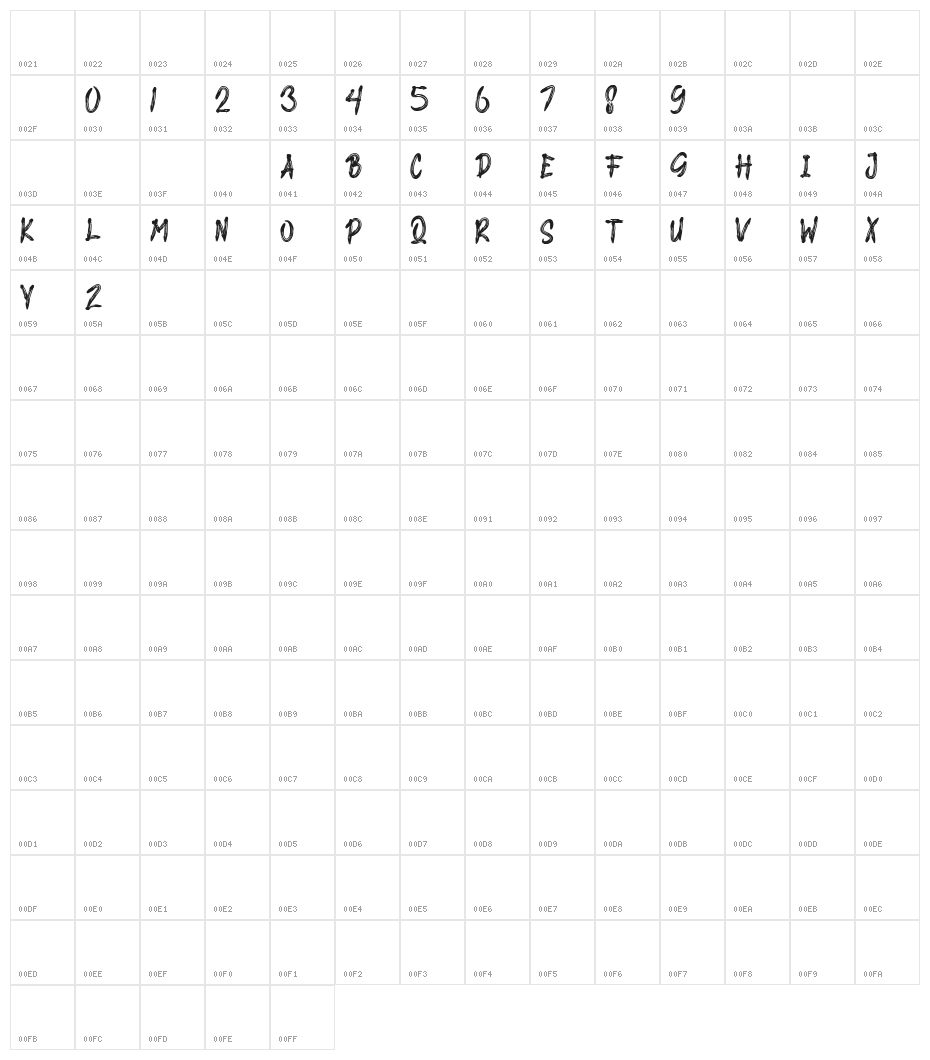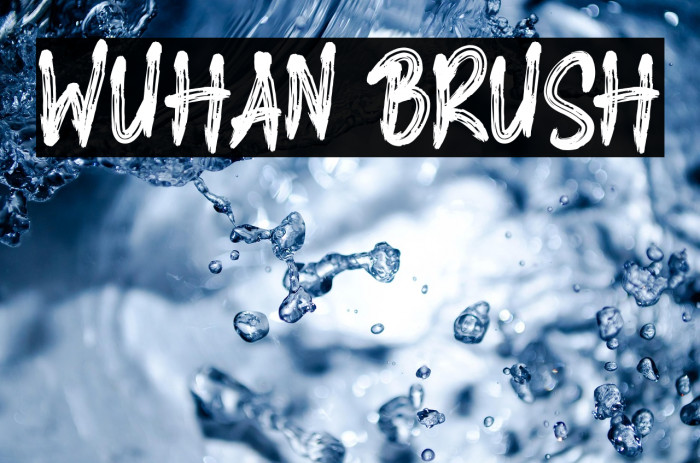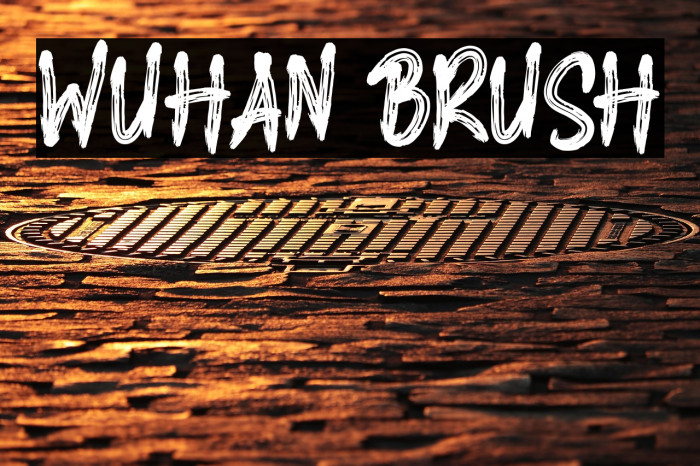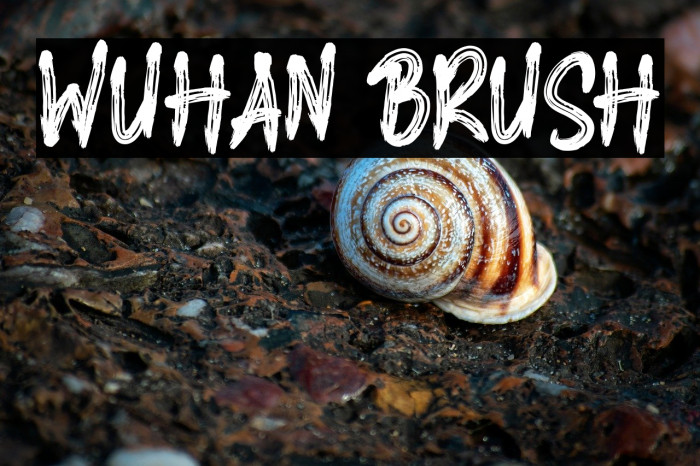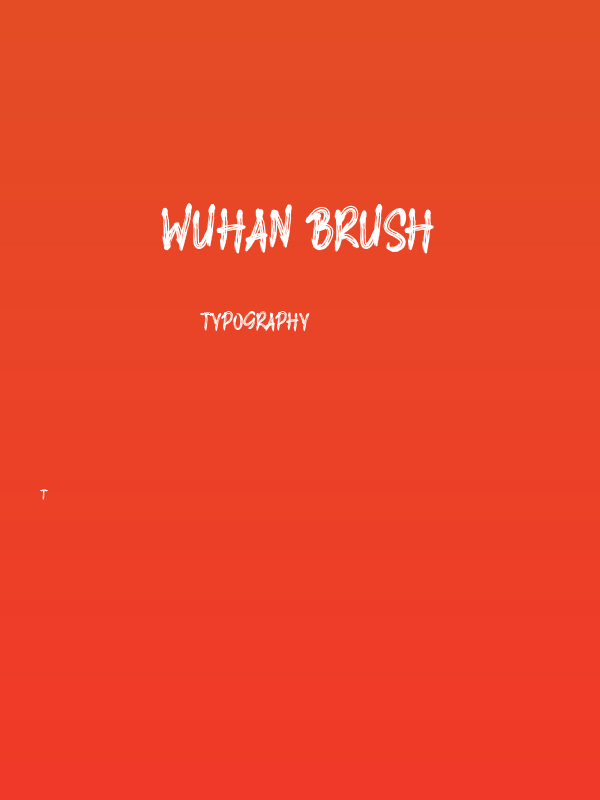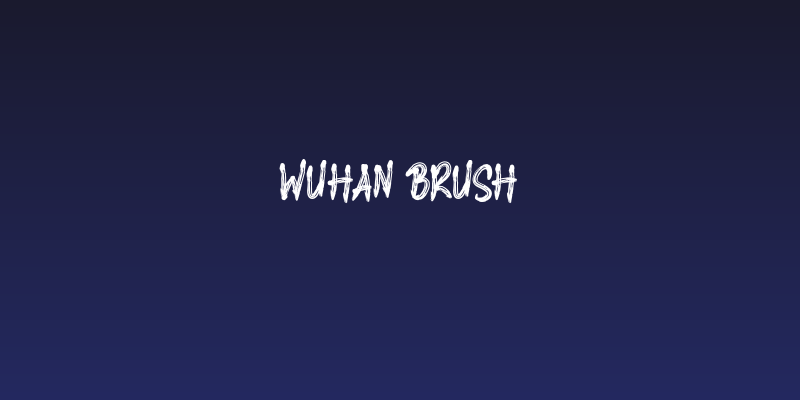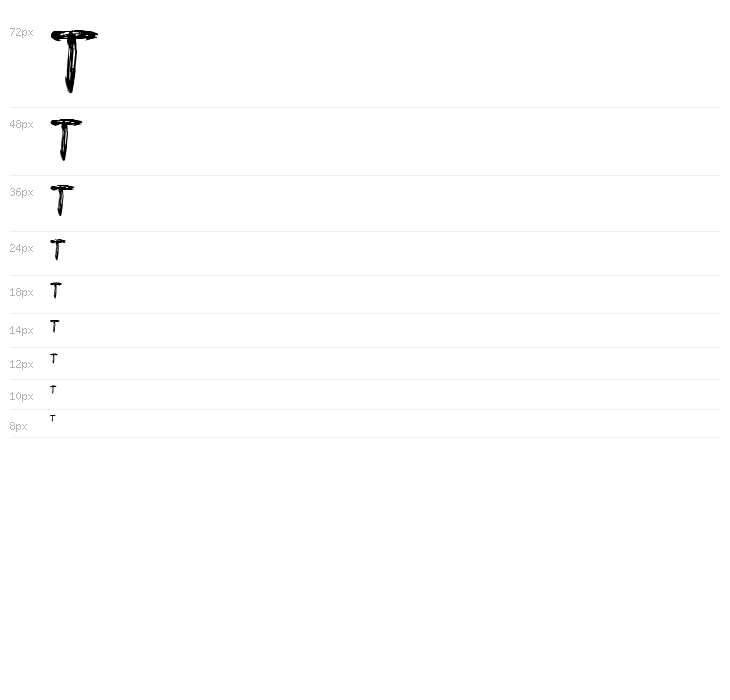
WUHAN BRUSH Font
WUHAN BRUSH Description
This font exhibits a bold, expressive brush style that captures a sense of dynamic movement and artistic flair. The strokes are uneven, mimicking the natural flow of hand-painted letters, which adds a personal and organic touch. Each character is crafted with a sense of spontaneity, featuring varying thicknesses that create a lively rhythm across the text. The uppercase letters are particularly striking, with their pronounced curves and angles, while the numerals maintain the same energetic style. This font is ideal for projects that require a bold statement, as it commands attention with its unique and artistic appearance.
| Overall Style | Artistic, Expressive |
| Proposed Projects | Ideal for artistic posters, branding, packaging, and creative social media graphics. |